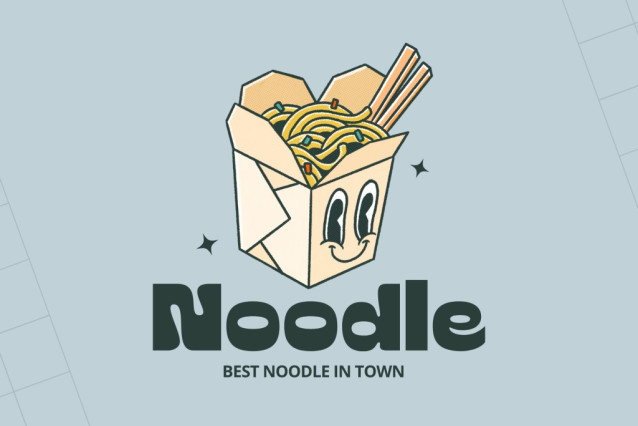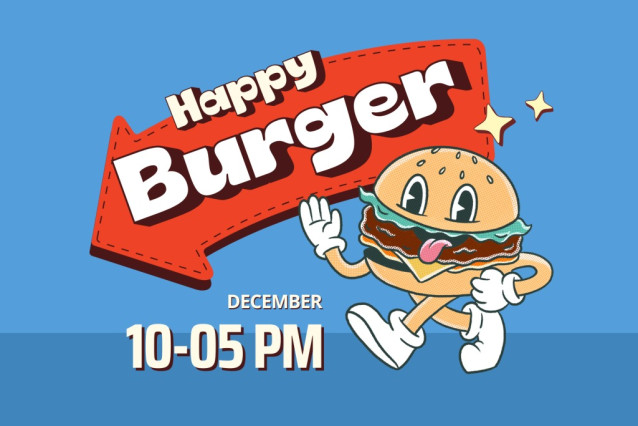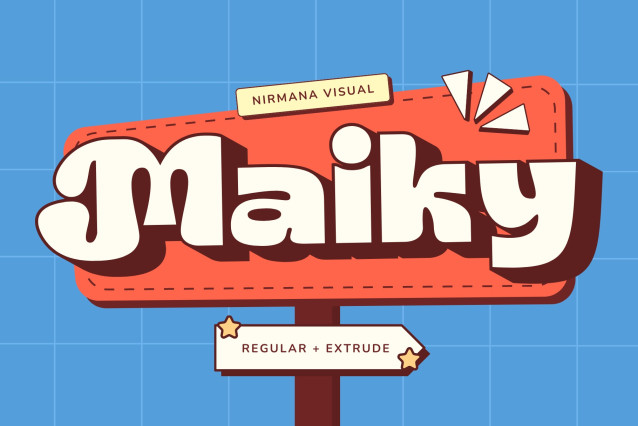
Maiky Retro Font
Maiky Retro Font is a bold and stylish retro font crafted especially for branding and logo design. With a nostalgic 70s-80s vibe and striking extrude feature, it brings a vintage yet modern appeal to any project. Perfect for making standout headlines, posters, or product branding, Maiky Retro adds personality and charm with its unique character and strong visual impact. Let your brand shine with this timeless classic!